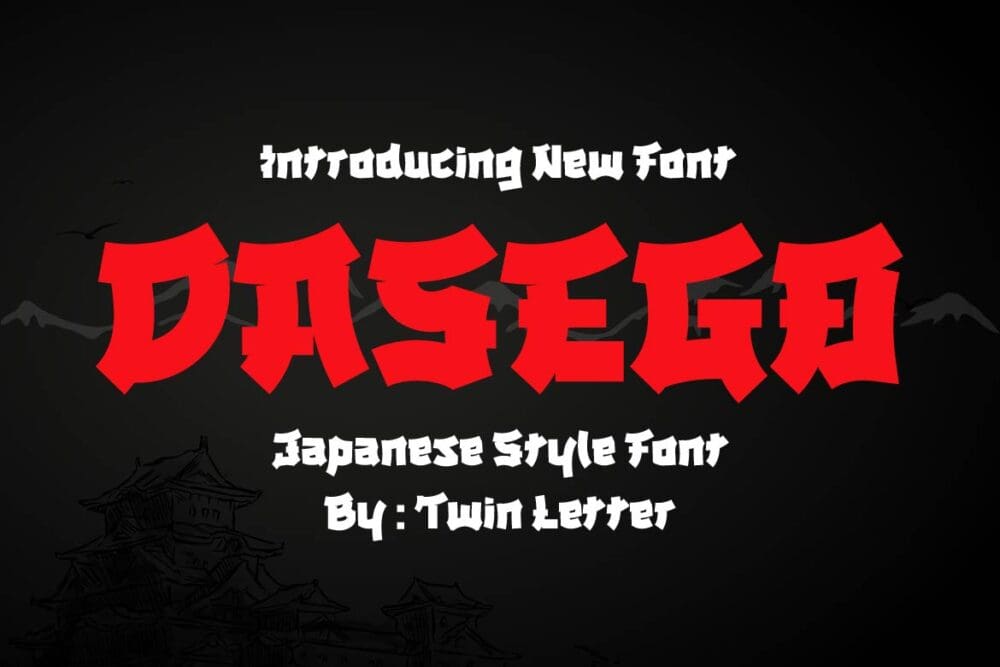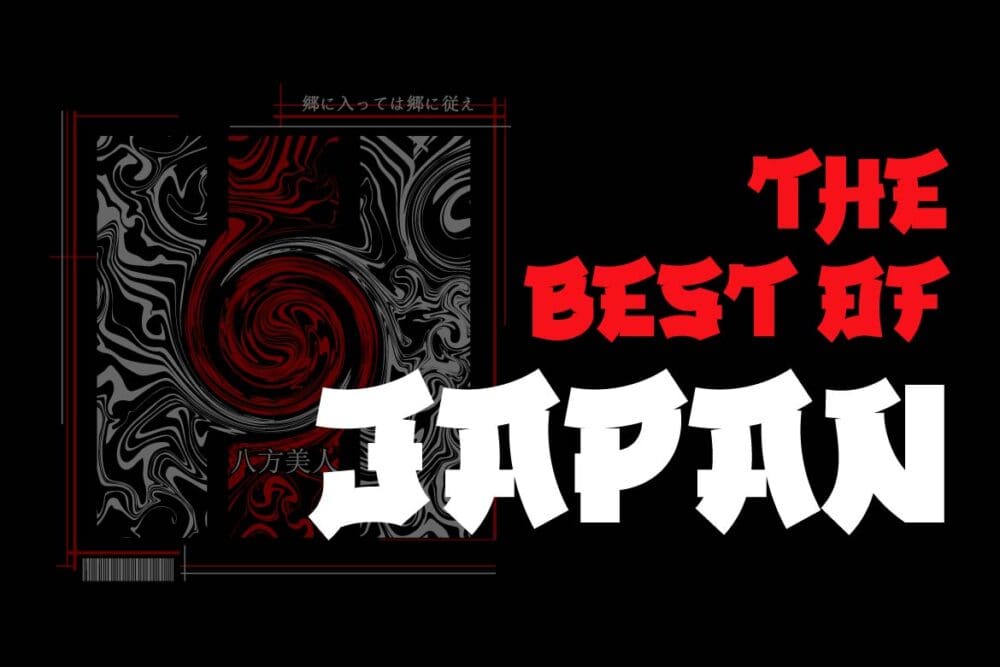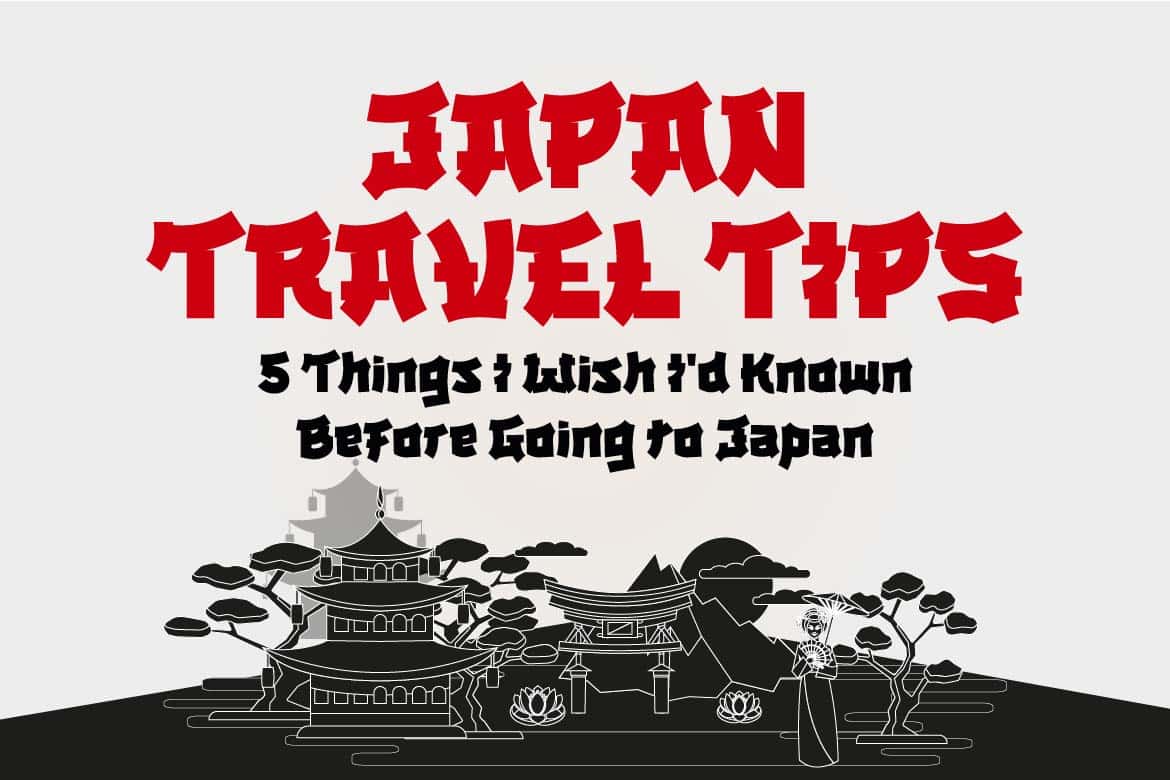
Dasego Font
Dasego Font. A display typeface with an Asia theme that we made to fulfill the needs of your project with an Asian theme that you may use for projects that can be understood by audiences all over the world.